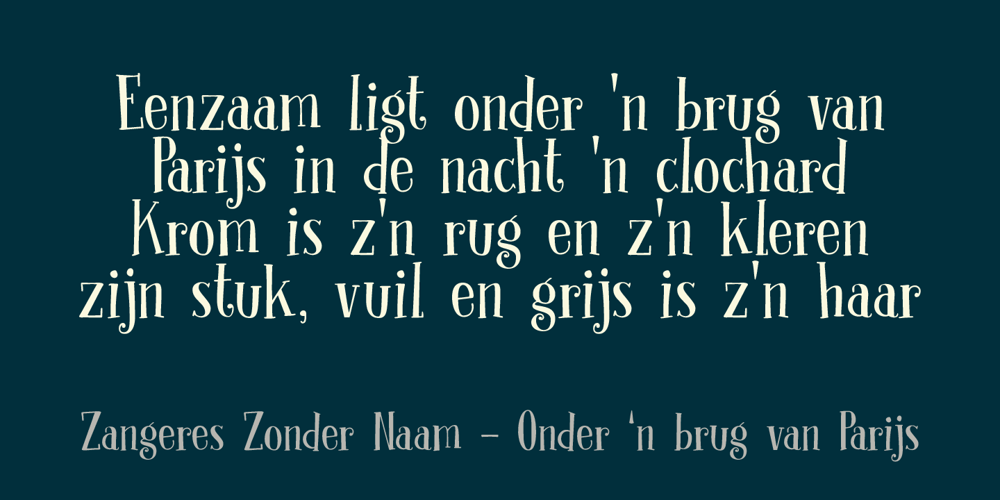
Clochard Font Family was designed by David Kerkhoff and published by Hanoded. Clochard contains 1 styles and family package options. Clochard is a handmade, Bodoni-like font. It is a little loose, a little rough in places and a little uneven, but it all adds to Clochard’s charm. Comes with plenty of diacritics!